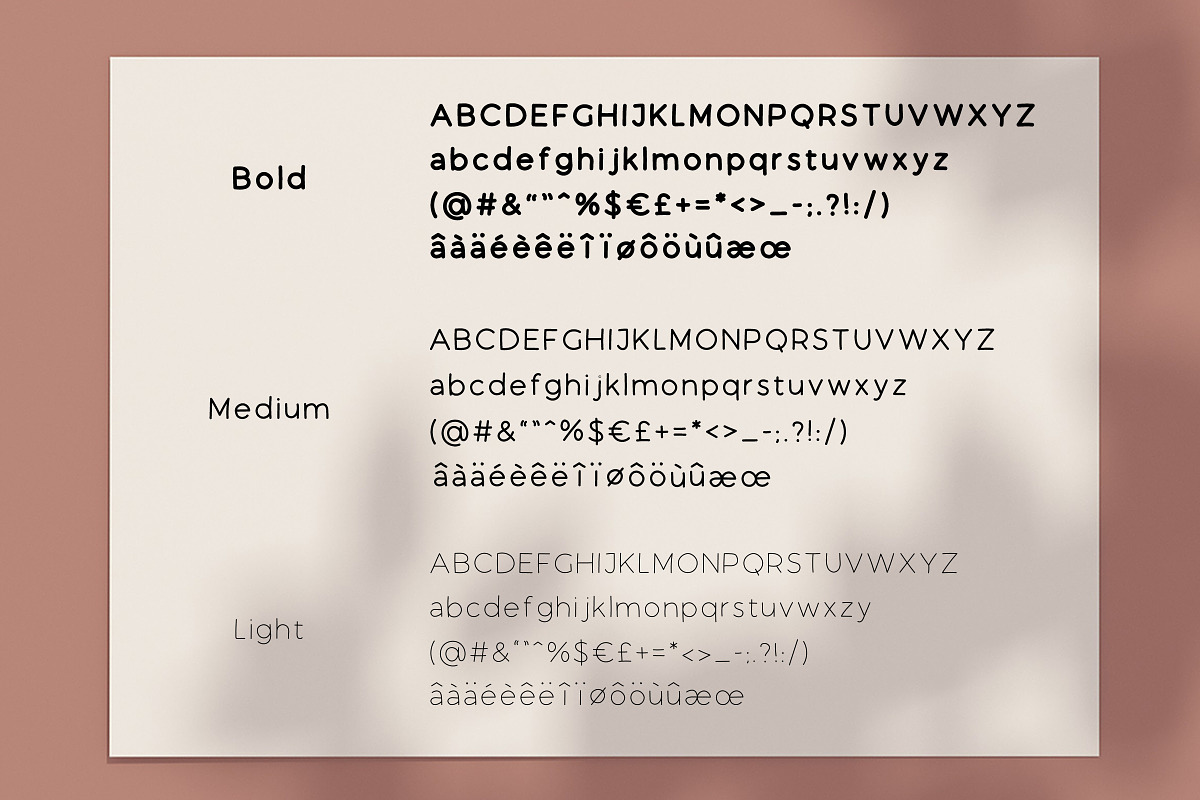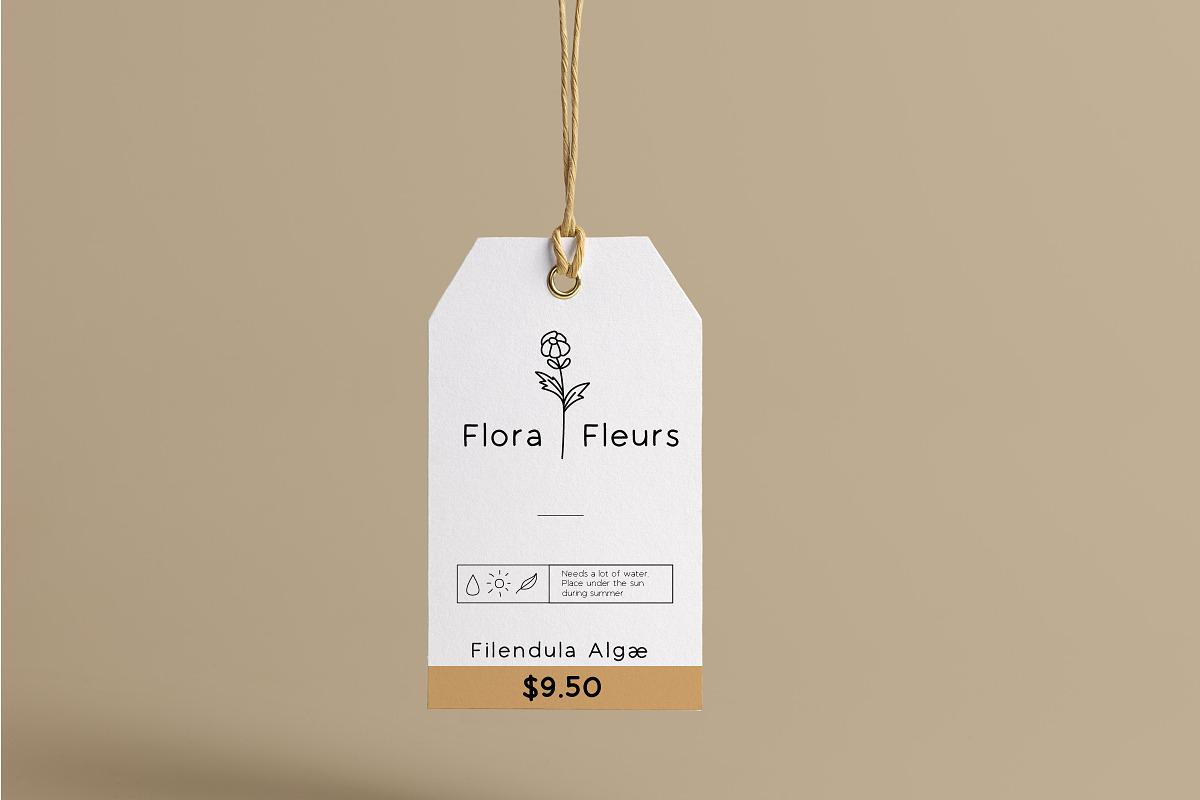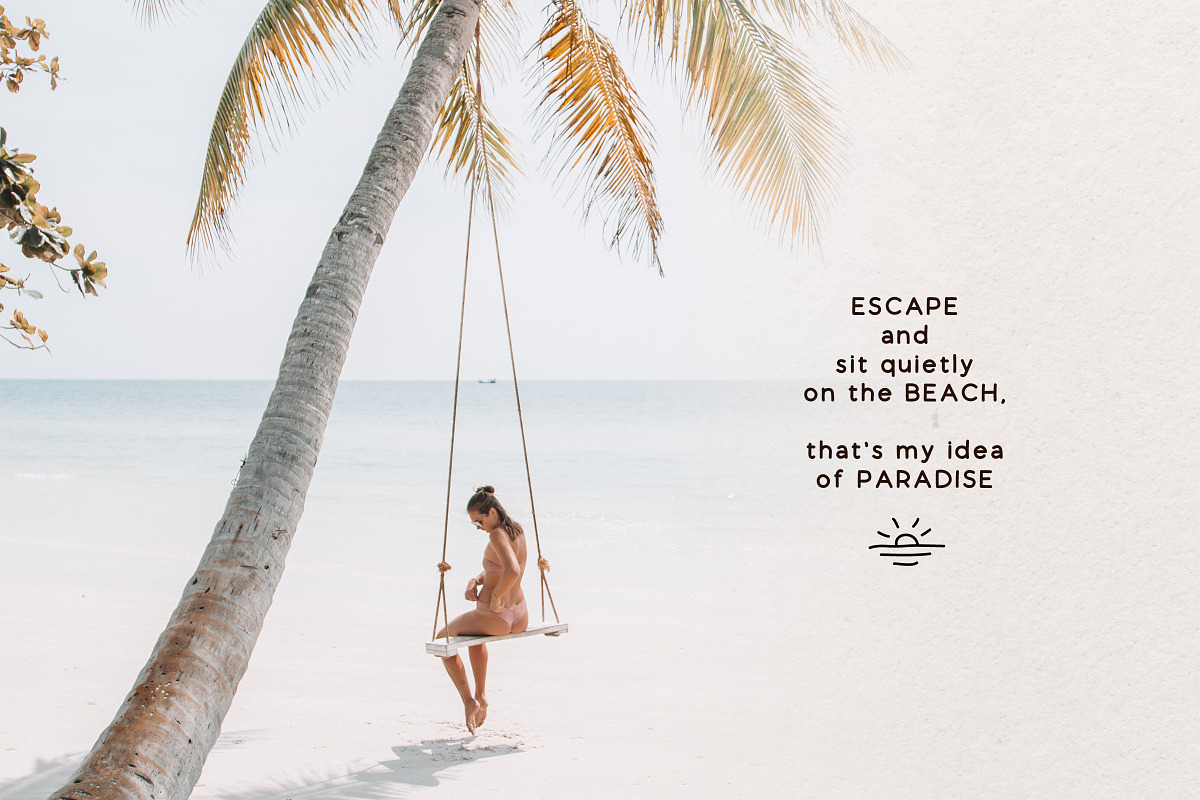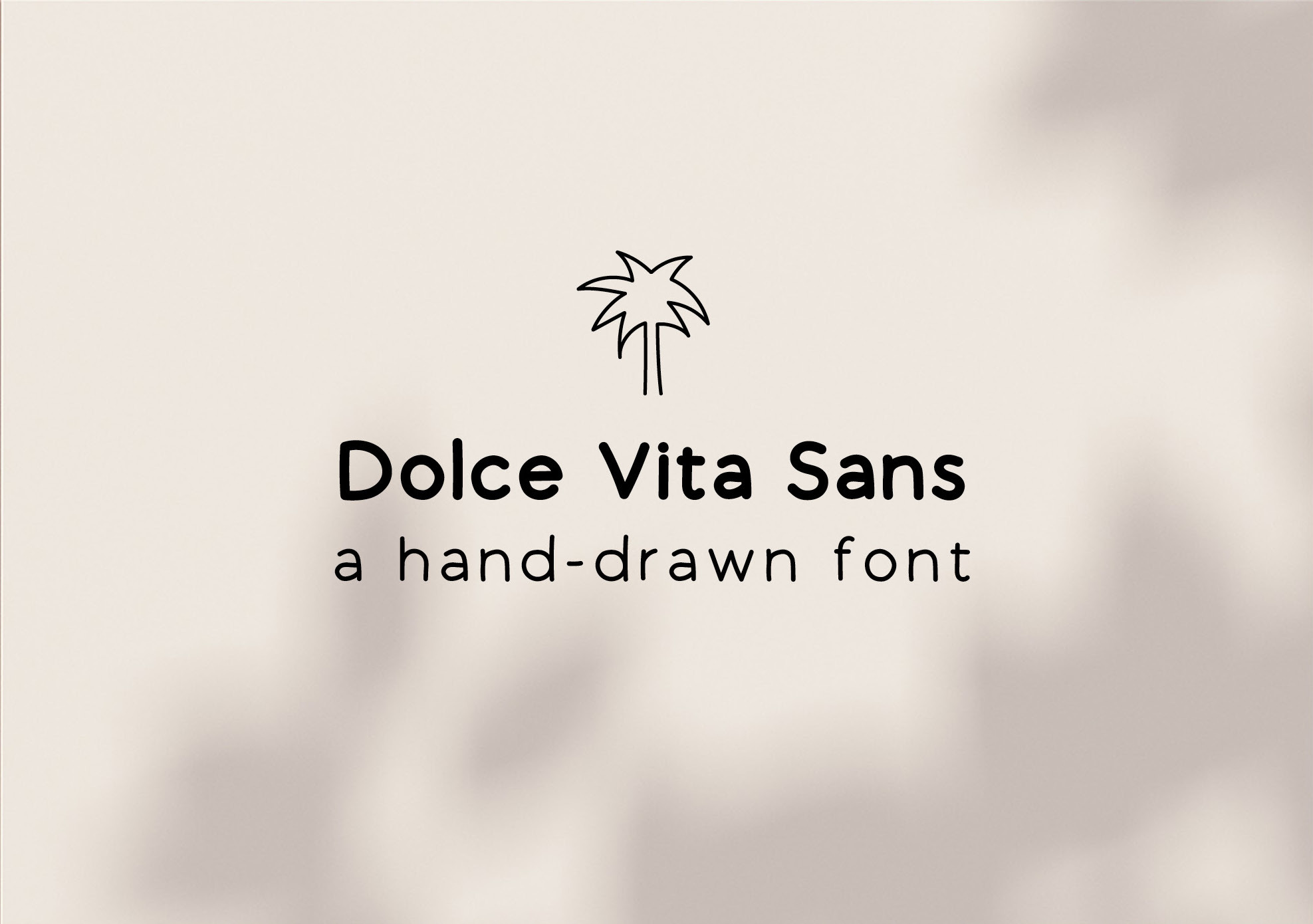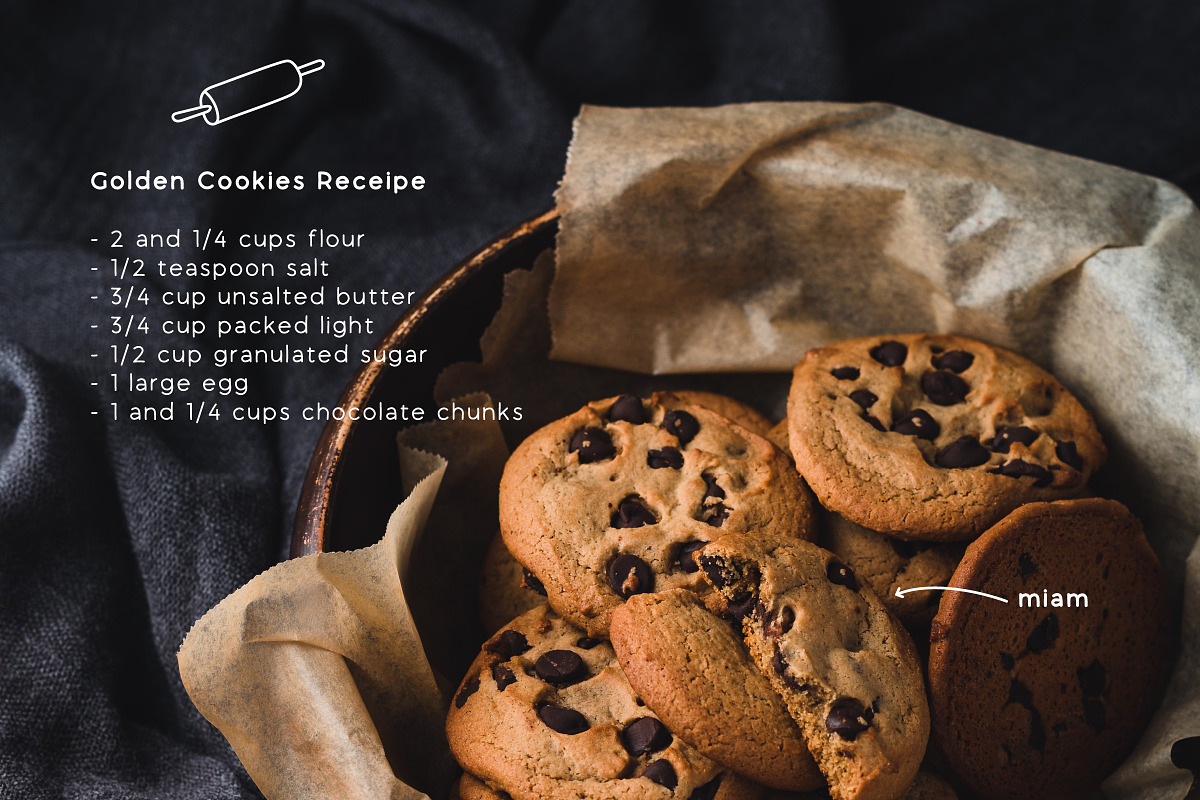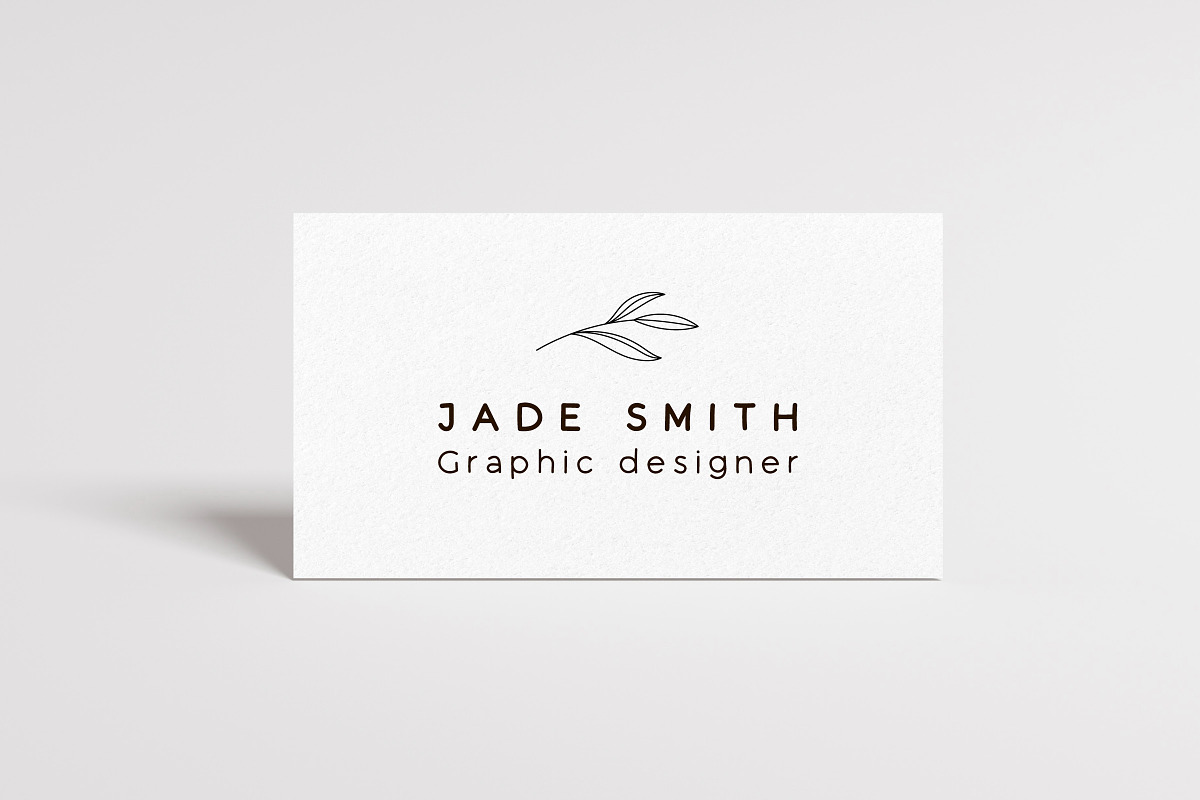
Hand Drawn Font, Bohemian style Font
Hand Drawn Font, Bohemian style Font for Branding and Logos. Sans Serif doodle style typeface, Hand written type, Instant Download
This font will be perfect for all yours projects : logos, banding, menus, wedding cards.. It will also be perfect for any social media post, like Instagram
- 3 fonts : Light, Medium, Bold